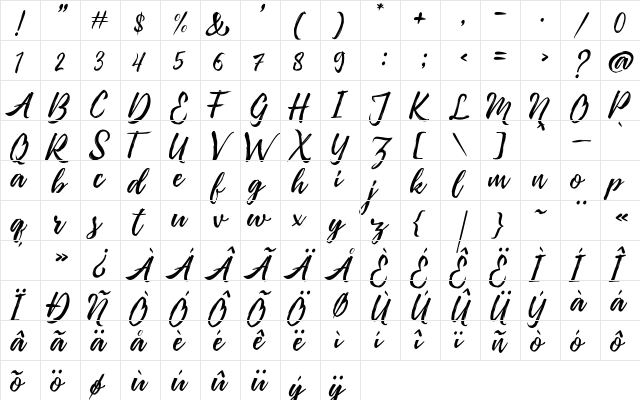
Pennello Free Demo Script Regular
| Foundry | Queentype |
| Designer | Queentype |
Design Context for Pennello Free Demo Script Typeface
Pennello Free Demo Script brings a calligraphic fluidity to the page — its connecting strokes and expressive curves give it an unmistakably human quality.
Font Pairing: Combine Pennello Free Demo Script with a simple geometric sans for maximum contrast — the tension between flowing curves and clean structure is a classic typographic pairing.
Pro Tip: Pair Pennello Free Demo Script with a clean sans-serif for supporting text. The contrast between fluid script and geometric structure creates an elegant typographic hierarchy.